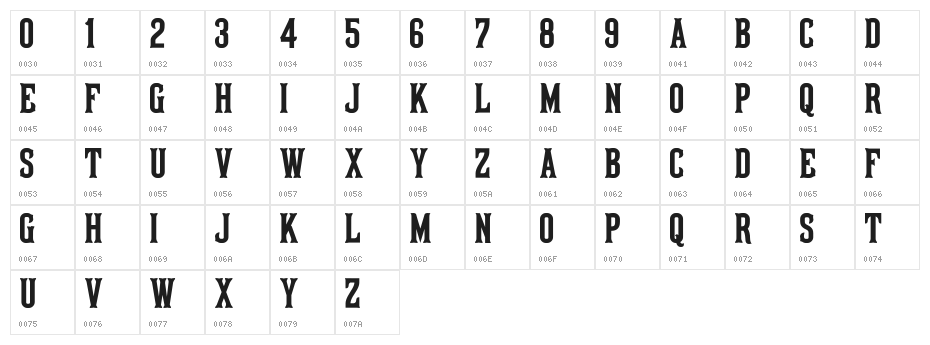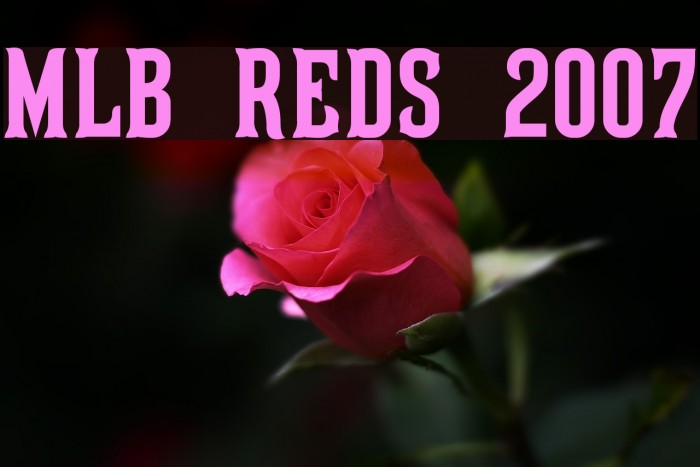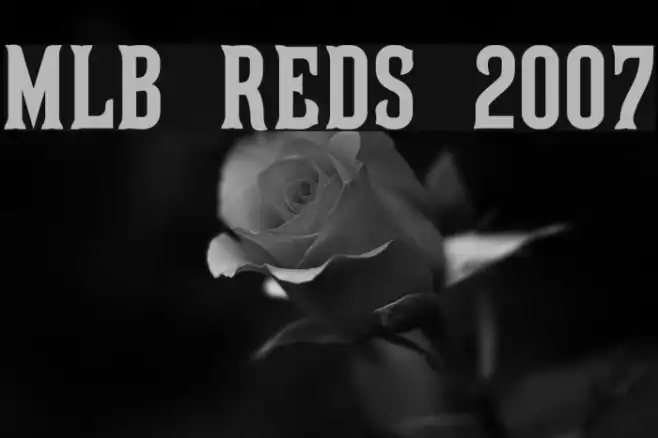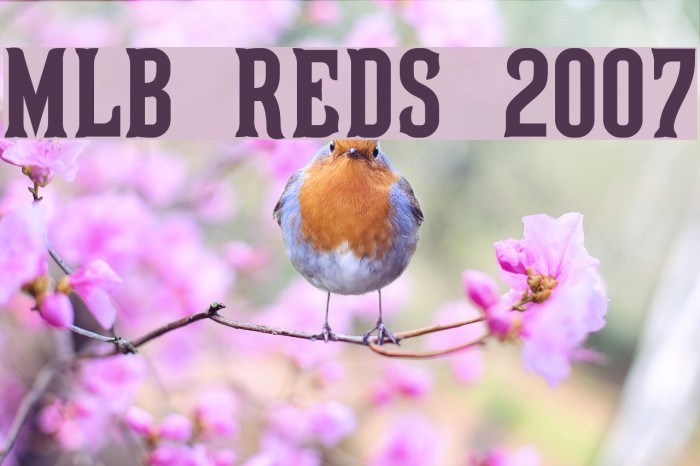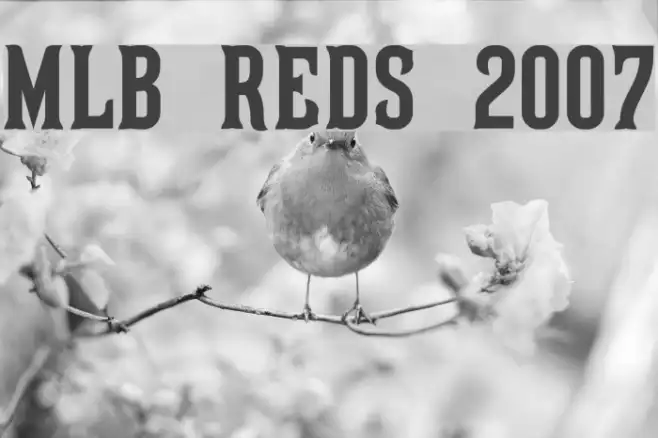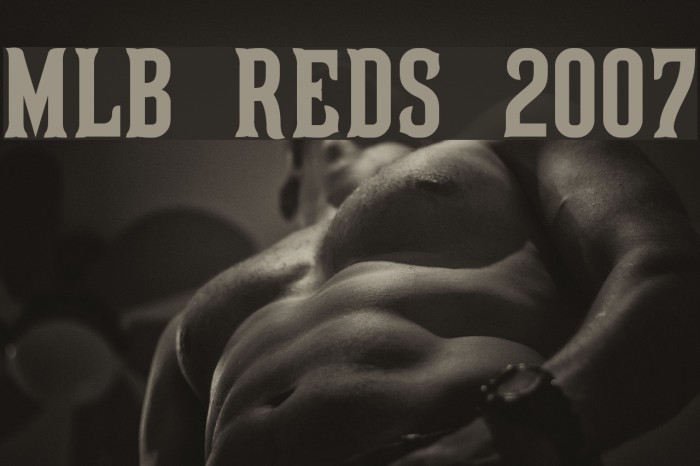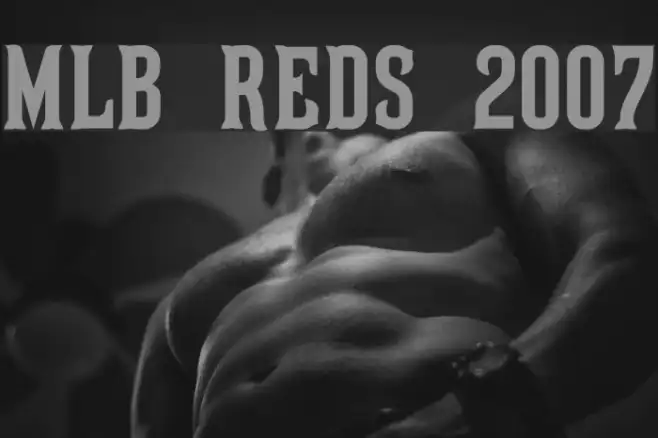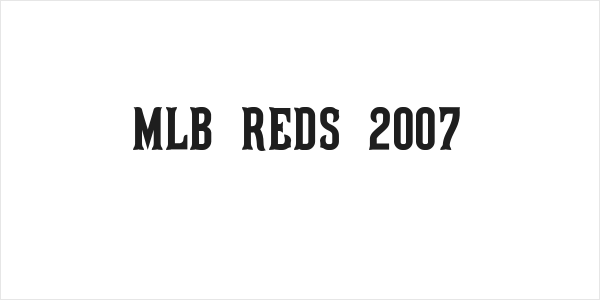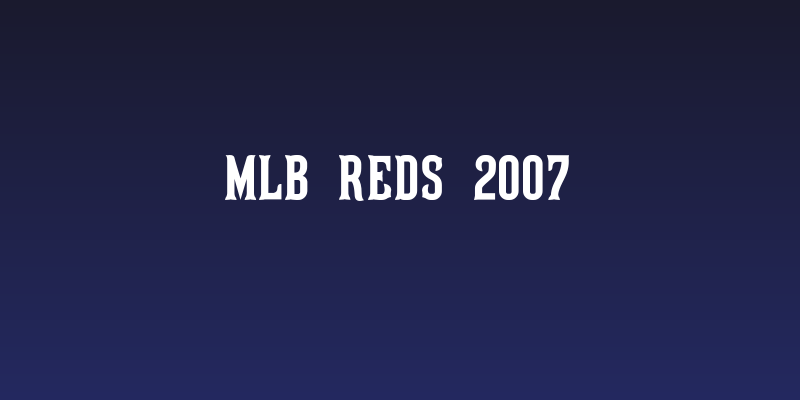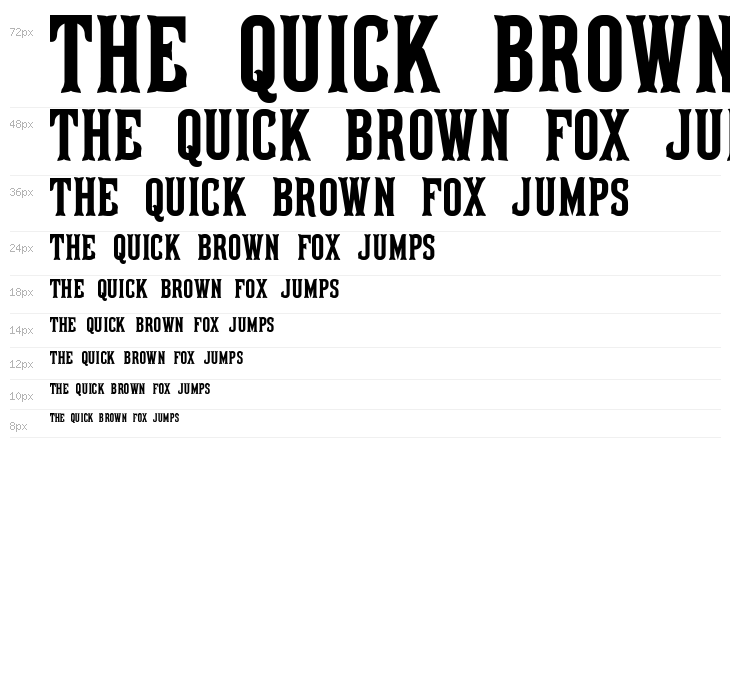
MLB Reds 2007 Font
MLB Reds 2007 Description
This font features a bold and striking design with a strong presence, characterized by its thick, block-like serifs and uniform stroke width. The uppercase letters exhibit a classic, vintage style reminiscent of traditional sports team logos, making it ideal for creating a sense of nostalgia and strength. The numerals are equally bold, ensuring clear readability and impact. The absence of lowercase letters and special characters suggests a focus on headline or display use, where emphasis and visibility are paramount.